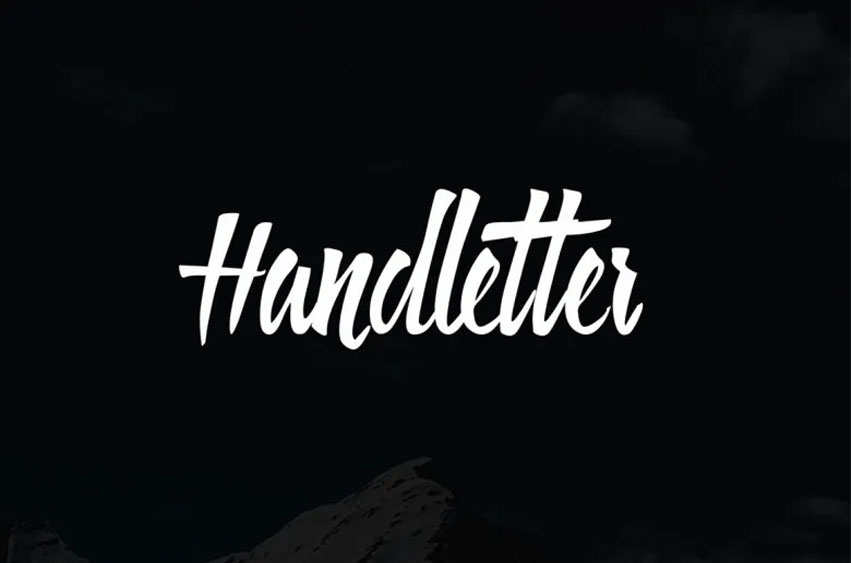
Handletter Font
Handletter Font is wonderful hand drawn style script font is contributed to you by graphic designer Sasha Koggio and this font is released for personal use only – have fun!